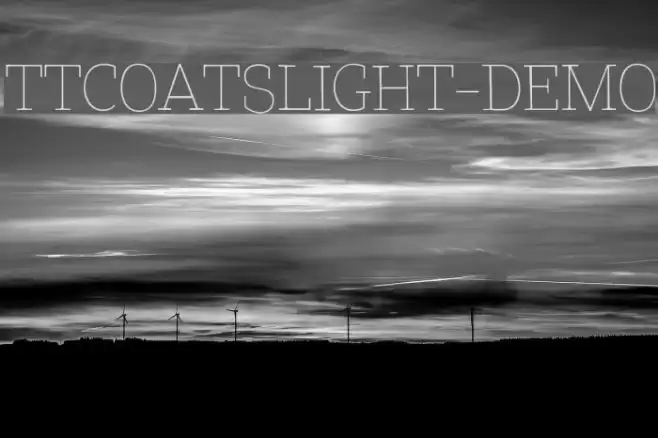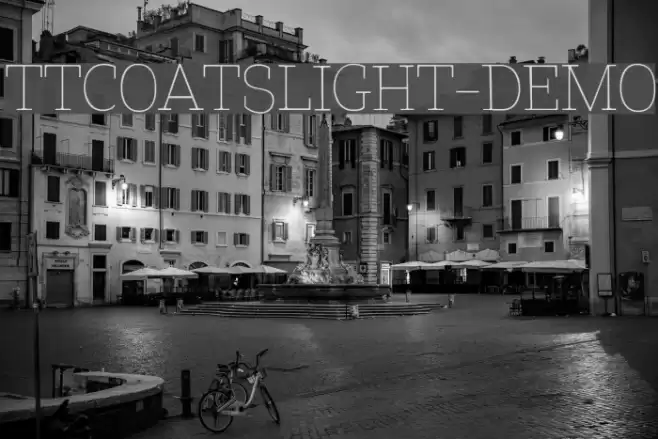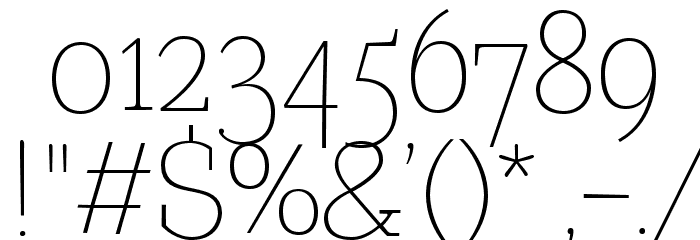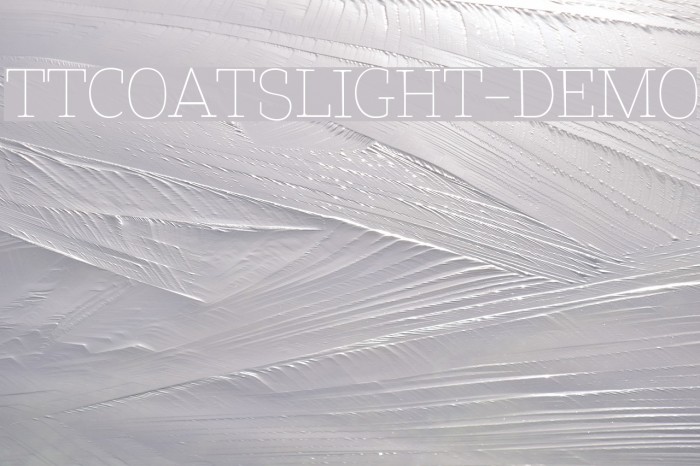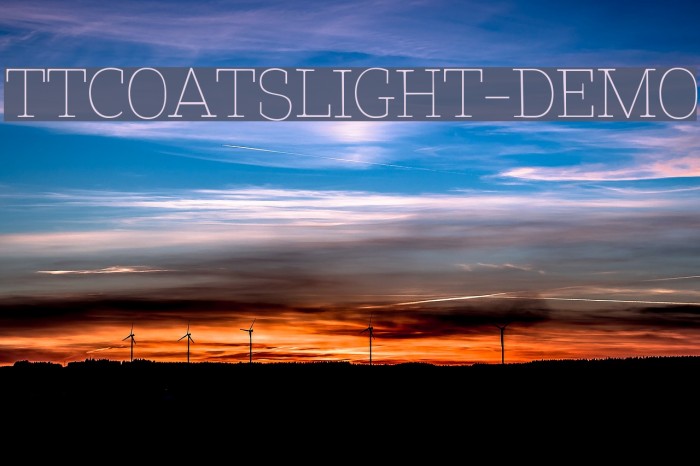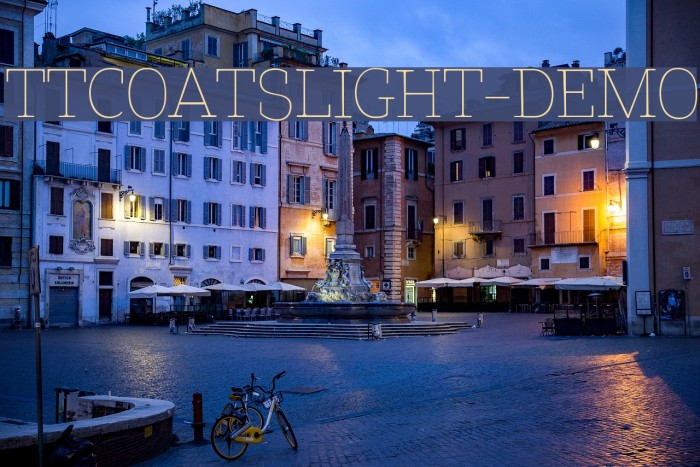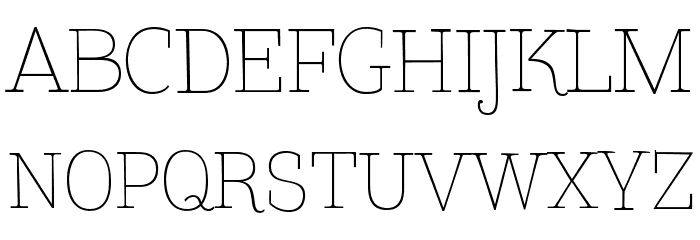
TTCoatsLight-DEMO Font
TTCoatsLight-DEMO Description
This font features a clean and elegant design with a modern twist. The characters are crafted with a light weight, offering a refined and sophisticated appearance. The uppercase letters are tall and slender, while the lowercase letters maintain a consistent style, providing a harmonious balance. The numerals are distinct and easy to read, complementing the overall aesthetic. Special characters are well-integrated, ensuring versatility in various design contexts. The font's thin strokes and minimal contrast give it a sleek and contemporary feel, making it suitable for a wide range of applications.
A modern, light-weight font with clean lines and minimal contrast from Uncategorized fonts.
- Proposed Projects: Ideal for branding, editorial design, and digital interfaces where a modern and elegant look is desired.